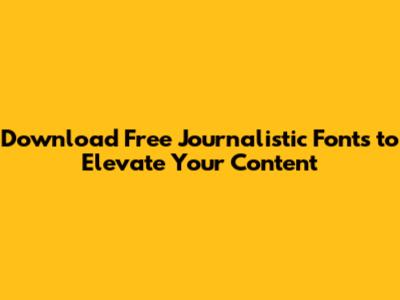
Ever noticed how some articles just feel more trustworthy, more professional, more newsy? Often, a huge part of that vibe comes from the fonts they use. We’re talking about journalistic fonts – those amazing typefaces designed for clarity, authority, and readability, perfect for conveying important information. If you're looking to give your blog, website, or publication that polished, credible edge without spending a dime, then you're in the right place! We're going to dive deep into the world of free journalistic fonts and show you exactly where to find them and how to make the most of your free download options. Get ready to transform your content, because great typography is an absolute game-changer, and luckily, getting access to these powerful tools often comes with a fantastic price tag: free.
Finding the right journalistic fonts can significantly enhance your content's appeal and professionalism. It’s all about creating an experience that resonates with your readers, making your words not just seen, but truly read and believed. In this comprehensive guide, we'll explore why these fonts are so crucial, what characteristics make them stand out, and, most importantly, where you can score some fantastic free journalistic fonts for your next project. We’ll cover various platforms for free download, discuss licensing, and even throw in some pro tips for pairing and using these fonts effectively. So, let’s get cracking and help you find that perfect typeface to make your stories shine!
Why Choose Journalistic Fonts? The Power of Typography
Alright, guys, let's talk about why journalistic fonts aren't just a fancy aesthetic choice; they're a fundamental pillar of credible communication. Think about it: when you pick up a newspaper or browse a reputable news site, what's one of the first things you subconsciously notice? It's the clean, crisp, and utterly legible text. These aren't accidental choices; they are the result of careful selection of journalistic fonts that have been meticulously designed to convey authority, readability, and trustworthiness. Historically, these fonts were developed to ensure vast amounts of information could be read quickly and without strain, often under less-than-ideal lighting conditions or in small print. Their legacy continues today, proving that a well-chosen typeface can profoundly impact how your audience perceives your message. The best part? Many of these incredibly effective journalistic fonts are available for free download, making professional-grade typography accessible to everyone.
The power of journalistic fonts lies in their ability to establish an immediate sense of gravity and professionalism. Unlike highly decorative or whimsical fonts, which might be great for invitations or creative branding, journalistic fonts prioritize clarity above all else. They are the silent workhorses that allow your content to speak for itself, unhindered by visual distractions. When you use a font that looks like it belongs in a reputable publication, you automatically lend that same air of repute to your own work. This is especially crucial for bloggers, independent journalists, students, or anyone who wants their written work to be taken seriously. The psychological impact is subtle but potent: a professional font signals a professional approach to content creation. And with so many excellent free download options out there, there's no excuse not to elevate your typography game. We'll show you exactly where to look to get these incredible assets for free.
Moreover, the right journalistic fonts can significantly improve the user experience by making your content much easier to read and digest. Imagine trying to read a long-form article set in a script or a highly condensed font—it would be an absolute nightmare, right? Journalistic fonts are engineered for marathon reading sessions, featuring balanced letterforms, appropriate spacing, and consistent strokes that guide the eye smoothly across the page or screen. They reduce eye strain and fatigue, encouraging readers to stay engaged with your content longer. This means your carefully crafted words actually get read, understood, and appreciated. So, when you’re scouting for that perfect typeface, remember that an effective journalistic font isn't just about looking good; it's about facilitating seamless communication. The good news is, there are tons of high-quality free journalistic fonts just waiting for you to discover and download.
Key Characteristics of Great Journalistic Fonts
When you're on the hunt for those perfect free journalistic fonts, it’s super important to know what you’re actually looking for, guys. Not all fonts are created equal, especially when it comes to the demanding world of news and information dissemination. The best journalistic fonts possess a specific set of characteristics that make them ideal for conveying credibility and ensuring maximum readability. First and foremost, readability is king. A truly great journalistic font ensures that every letter, every word, and every paragraph is crystal clear, even at small sizes or on varying screens. This means well-defined letterforms, appropriate x-heights, and clear distinctions between similar-looking characters (like 'I' and 'l', or '0' and 'O'). When you’re sifting through free download options, always test them out with a block of text to see how they perform under real reading conditions. Prioritizing readability ensures your message always comes across without a hitch, making your content truly accessible and engaging for your audience.
Another crucial characteristic of top-tier journalistic fonts is their versatility. A font that excels in a headline might fall flat as body text, and vice-versa. However, a truly exceptional journalistic font often comes in a wide range of weights (light, regular, bold, black) and styles (italic), making it adaptable for various purposes within a single publication. You might use a bold weight for a captivating headline, a regular weight for the main body text, and an italicized version for captions or quotes. This versatility allows you to maintain typographic consistency while still creating visual hierarchy and emphasis. When exploring free journalistic fonts for download, check if they offer a family of weights and styles. This flexibility is a huge bonus, as it means you can establish a cohesive visual identity across all your content, from hard-hitting news pieces to lighter opinion columns, all while sticking to that single, trusted typeface. It’s like getting a whole toolkit in one free download package!
Beyond readability and versatility, professionalism and authority are inherent traits in the best journalistic fonts. These fonts don't shout; they command attention through their understated elegance and serious demeanor. They often feature clean lines, balanced proportions, and a sense of timelessness. Think about the classic serif fonts used in newspapers for centuries – they evoke a sense of tradition and gravitas. Similarly, many modern sans-serif fonts have been designed with a neutral, objective aesthetic, perfect for factual reporting. They avoid excessive flourishes or trendy designs that could quickly become dated or distract from the content itself. When you’re choosing your next free journalistic font from the numerous free download sites, consider how it makes you feel. Does it inspire confidence? Does it look like it belongs on a front page? If the answer is yes, then you’re on the right track. Remember, the font is the first impression your words make, so make it count with a typeface that speaks volumes about your content's credibility and importance.
Finally, legibility is an aspect of readability that focuses on how easily individual characters can be distinguished from each other. In journalistic fonts, this is paramount. Imagine reading a stock ticker or a breaking news headline where an 'i' looks too much like an 'l', or a 'B' is easily confused with an 'E'. It’s not just annoying; it can lead to misinterpretation. Good journalistic fonts are designed to prevent this confusion, with distinct forms for each character. They also often have excellent kerning (spacing between letters) and leading (spacing between lines) to prevent text from appearing cramped or messy. This is where the distinction between serif and sans-serif fonts often comes into play. Serifs (the small feet at the end of strokes) can guide the eye along a line of text, making them traditionally popular for long-form print articles. Sans-serif fonts, with their clean, modern look, often excel on digital screens. Many excellent journalistic fonts exist in both categories, so explore both serif and sans-serif options for your free download and pick what best suits your medium and aesthetic. Ultimately, the goal is always to make your content as effortlessly consumable as possible, and these characteristics are the secret sauce.
Top Picks: Where to Find Free Journalistic Fonts for Download
Alright, guys, enough with the theory! It's time to get to the good stuff: where you can actually find and perform a free download of some amazing journalistic fonts. There are tons of resources out there, but not all of them offer the quality, versatility, and crucial licensing options you need for professional projects. We’ve sifted through the noise to bring you the best spots to grab those perfect typefaces that will instantly elevate your content. Remember, while these fonts are free, always double-check the specific license for commercial use, especially if you plan to use them in projects that generate revenue. Most free journalistic fonts offered on reputable sites come with a generous license, but a quick check never hurts! So, let's explore these fantastic platforms and get you set up with some incredible new typefaces for free download.